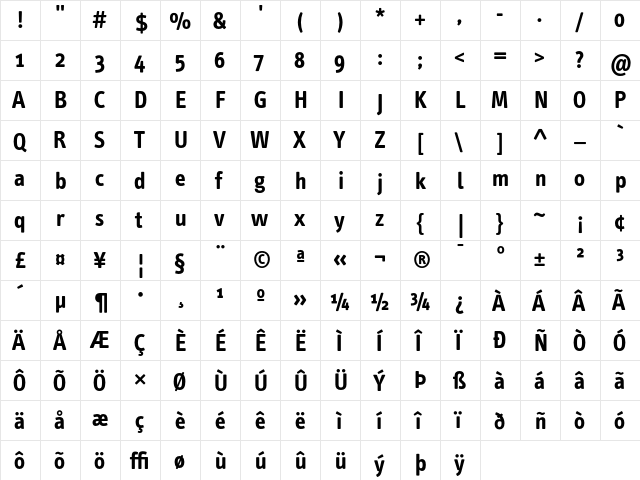
InfoText Bold
Design Context for InfoText Typeface
InfoText takes a measured approach to typography — its balanced proportions and neutral character make it a reliable workhorse for both digital and print work. The heavy weight commands attention and anchors typographic hierarchies.
Pro Tip: Pair InfoText with a font of contrasting weight or personality to build a more expressive typographic hierarchy.